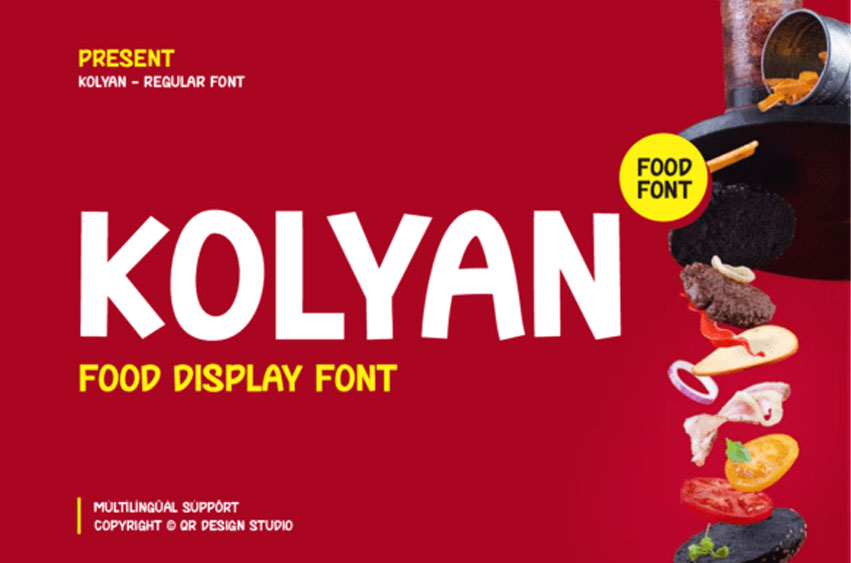
Kolyan Font
Kolyan Font is a bold and playful food-themed display font designed to grab attention. With chunky letterforms and clean edges, it’s ideal for menus, food truck branding, snack packaging, cooking blogs, and restaurant ads. The font delivers energy and friendliness in every letter.
Perfect for conveying bold flavor and fun, Kolyan thrives in both print and digital use. Pair it with vibrant colors and mouthwatering visuals to create eye-catching designs that pop off the screen—or the menu!